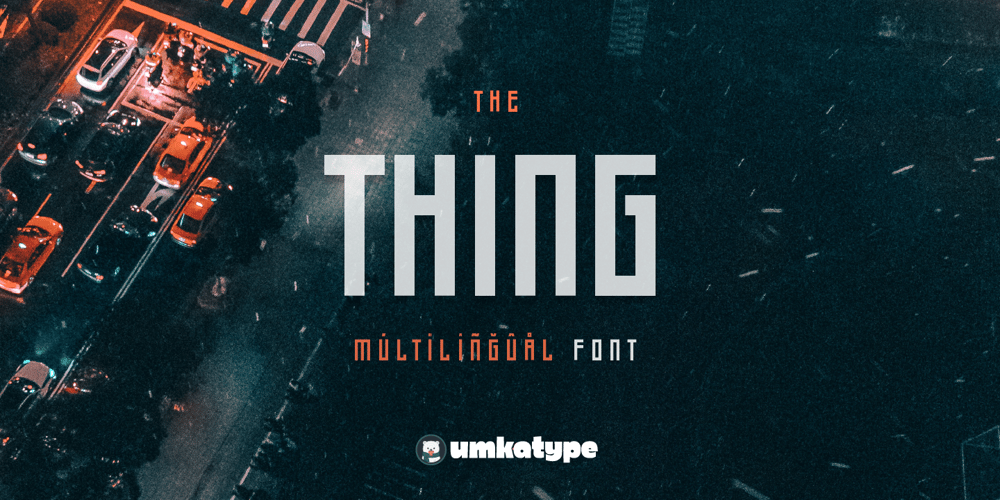
Thing Font Family was designed by Alper Çakıcı and published by Umka Type. Thing contains 1 styles and family package options. Thing – A Display Font : Thing is a carefully crafted display font. It has Extended Latin characters. It created for poster, web, brand and social media designs.This is all Caps Fonts.